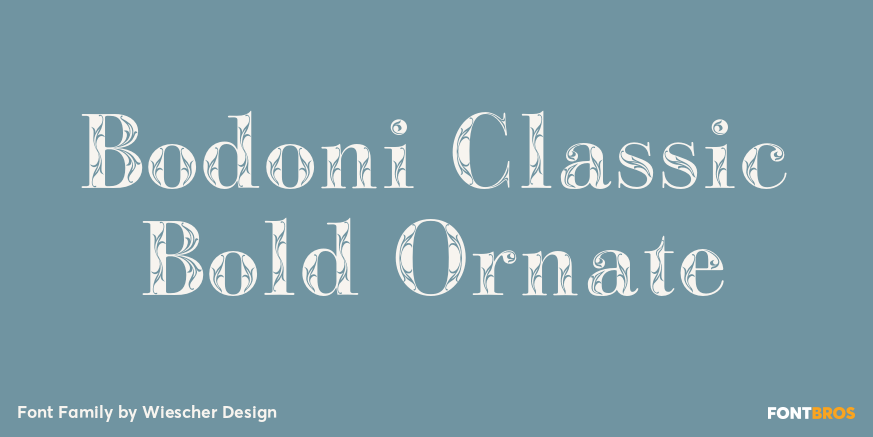
Bodoni Classic Bold Ornate
About Bodoni Classic Bold Ornate
Bodoni Classic Bold Ornate is another puzzlestone in my ever growing Bodoni Classic family. This time the letters are ornated within the limits of the letter, this keeps the classic form of the typeface intact and still gives it ample decoration. Please…